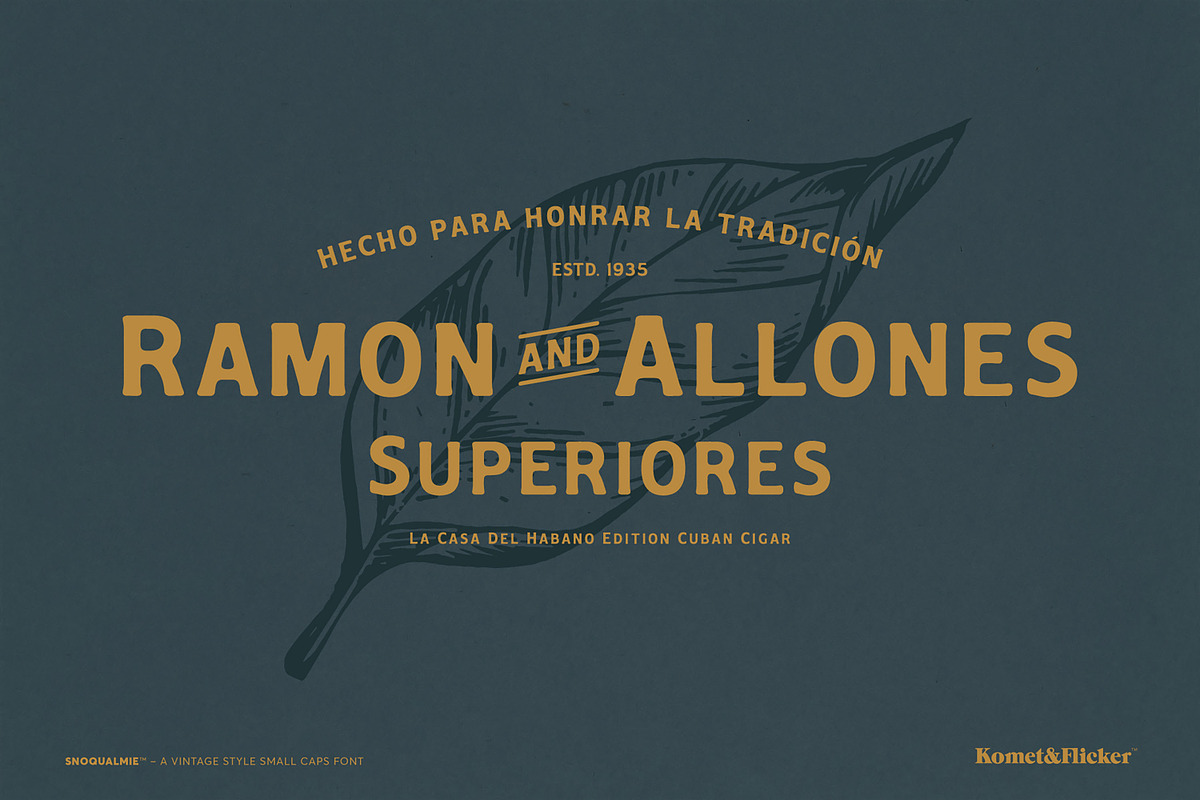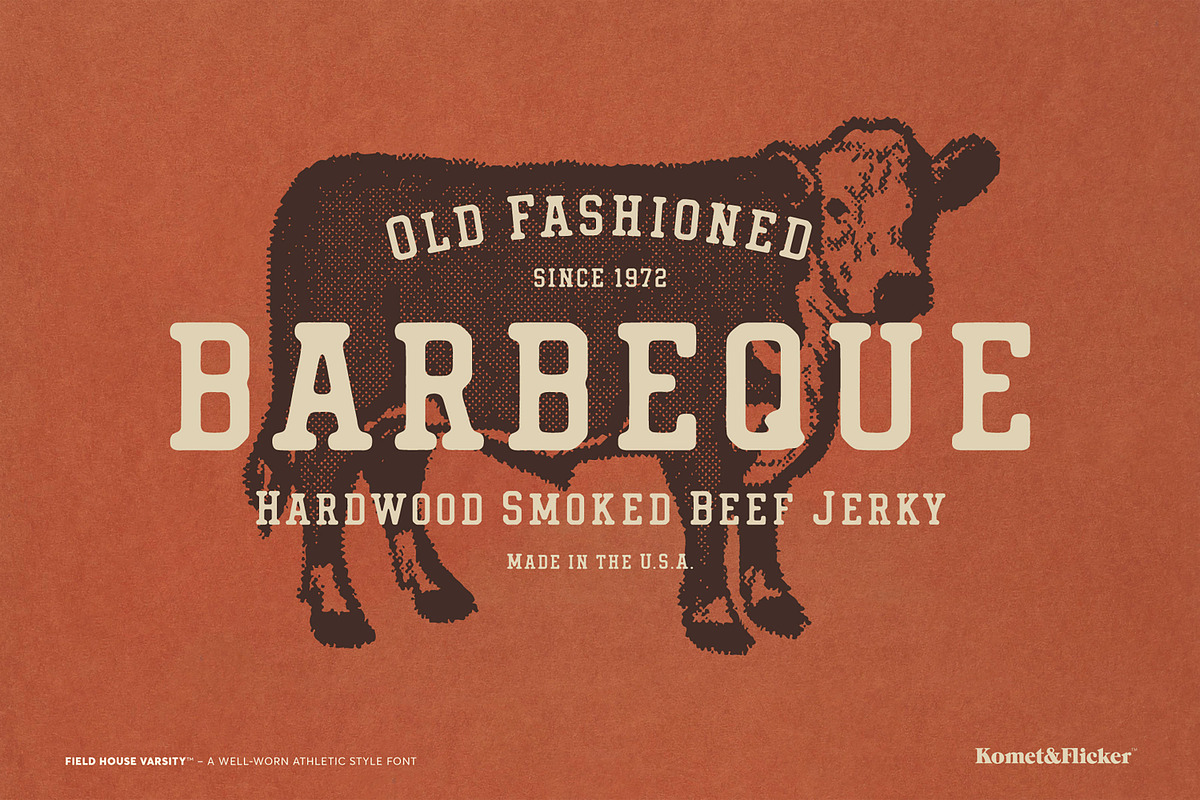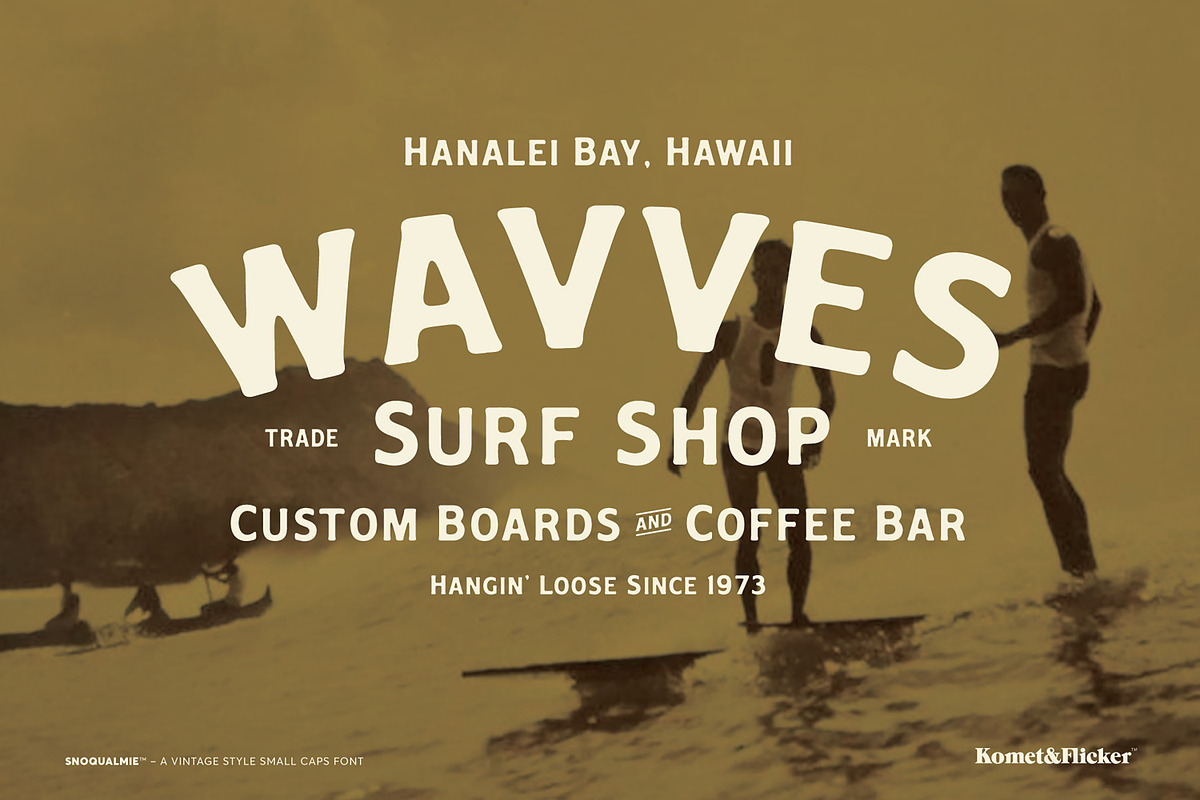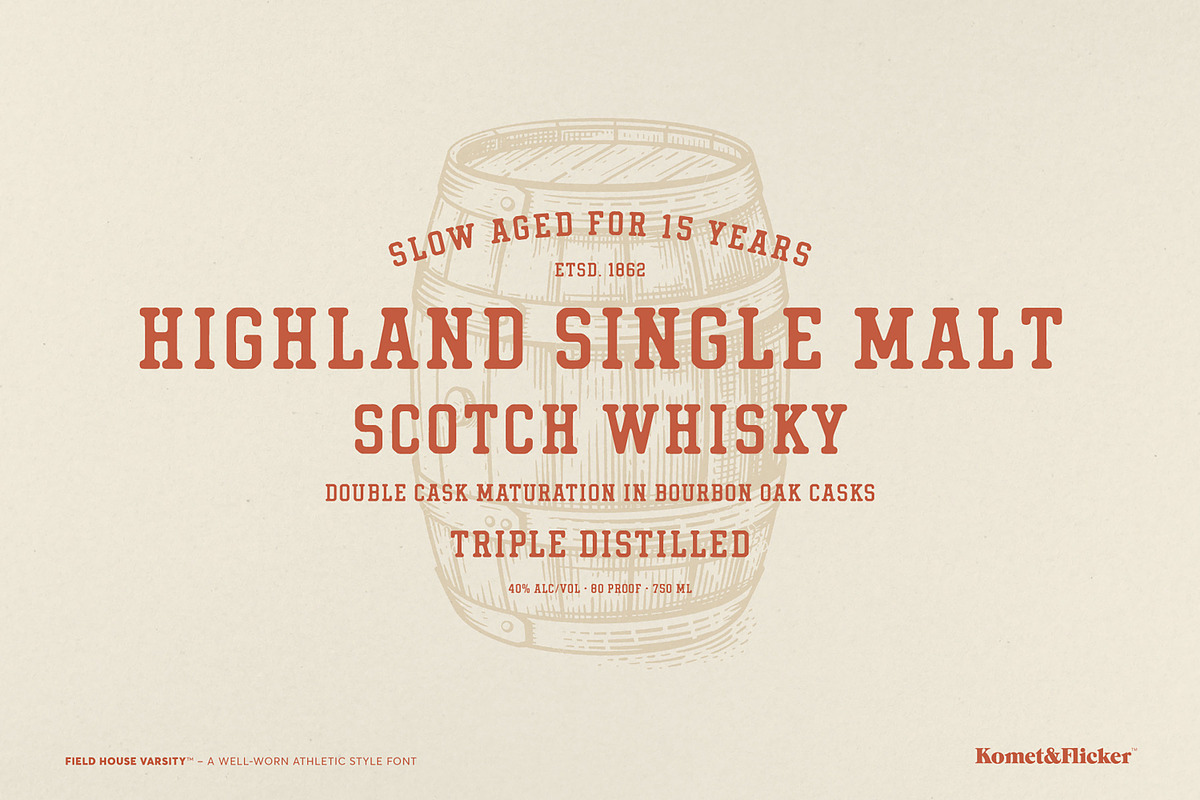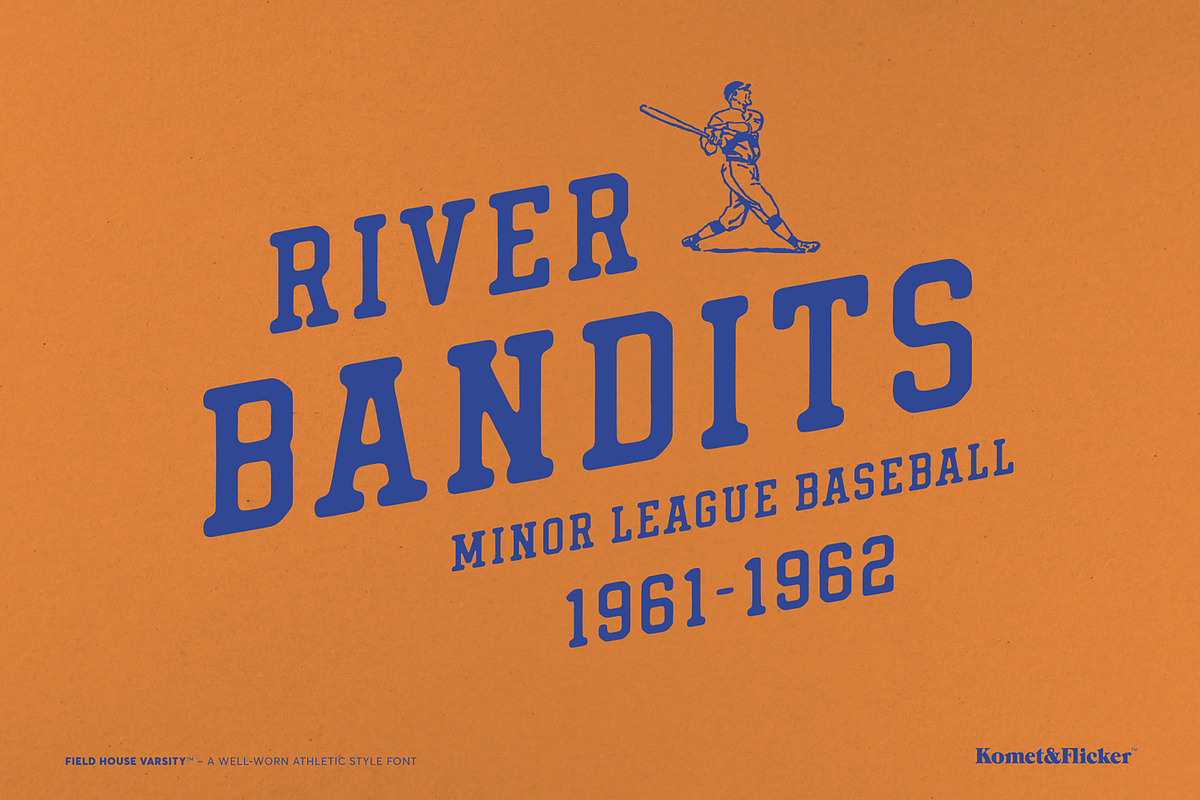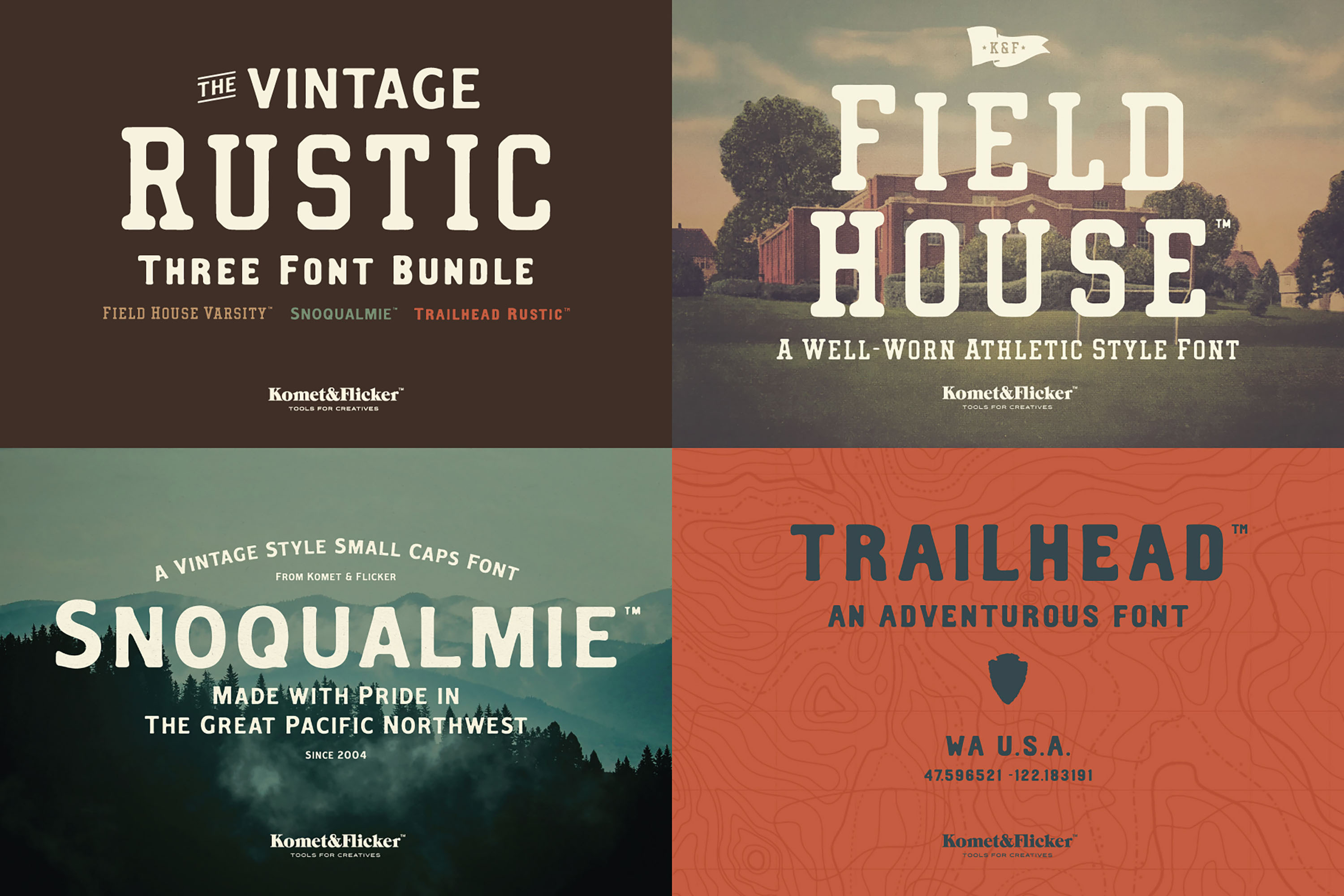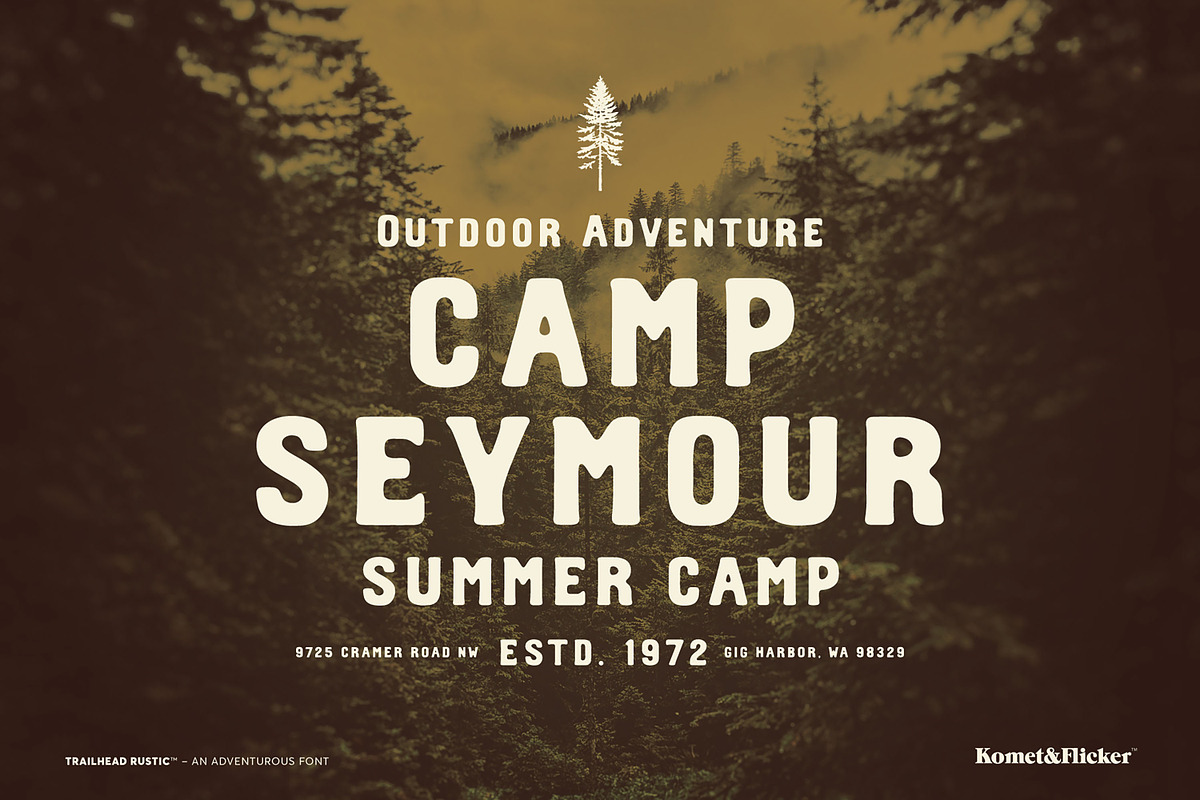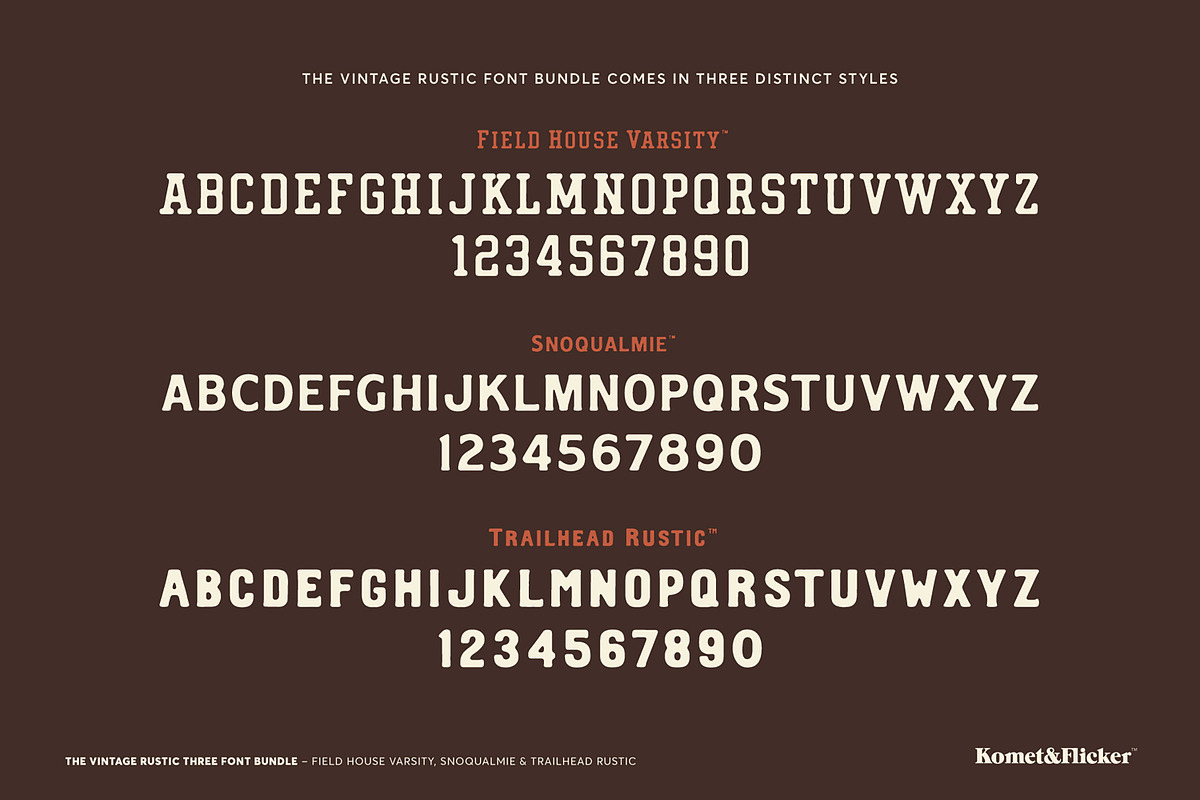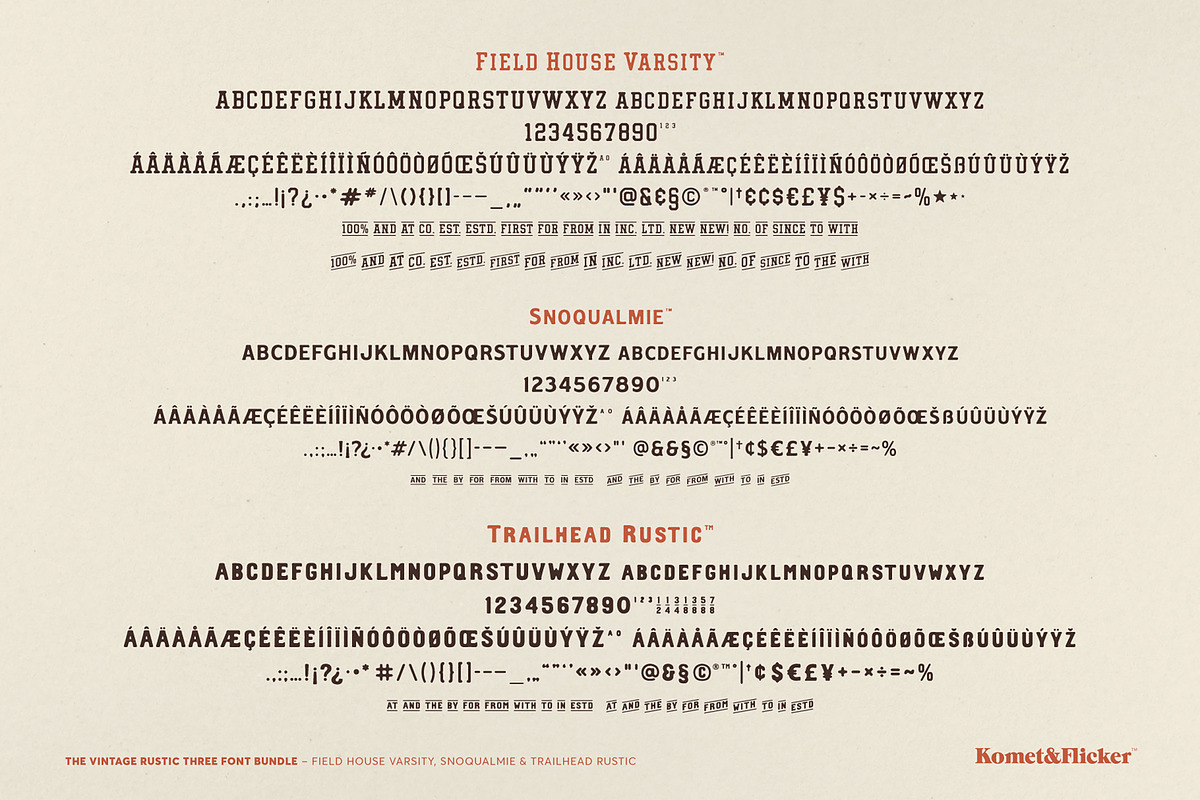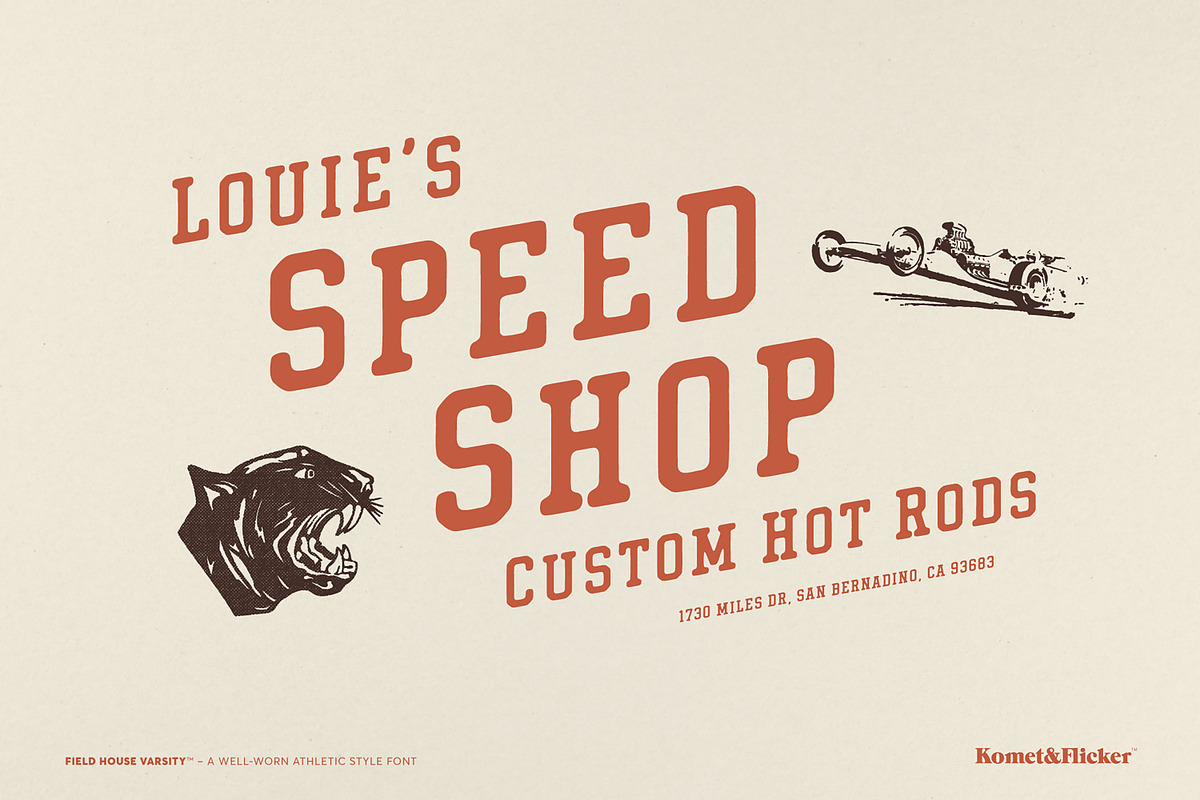
The Vintage Rustic Three Font Bundle
Elevate your design projects with The Vintage Rustic Three Font Bundle, a meticulously curated collection featuring three unique small caps typefaces: Field House Varsity, Snoqualmie, and Trailhead Rustic. Each font exudes a rustic and rugged, well-worn charm, effortlessly evoking a sense of authenticity and warmth.
Field House Varsity: This font captures the essence of classic athletic lettering, lending an authentic, well-worn feel that resonates with nostalgia.
Snoqualmie: Elegant yet sturdy, Snoqualmie adds a touch of sophistication to any project while maintaining that cherished rustic feel.
Trailhead Rustic: Inspired by the rugged charm of national parks trail signs, this font is ideal for outdoor-themed designs, evoking the spirit of adventure.
Designed with versatility in mind, these fonts support select Western, Central, and Southeastern European language characters, ensuring your designs reach a wider audience. Plus, the bundle includes a set of custom connecting words, allowing for seamless typography that flows beautifully in your layouts.
Whether you're creating a vintage-inspired logo, rustic packaging, or charming invitations, This font bundle offers the perfect blend of rugged character and authenticity. Transform your creative projects with these timeless fonts today!